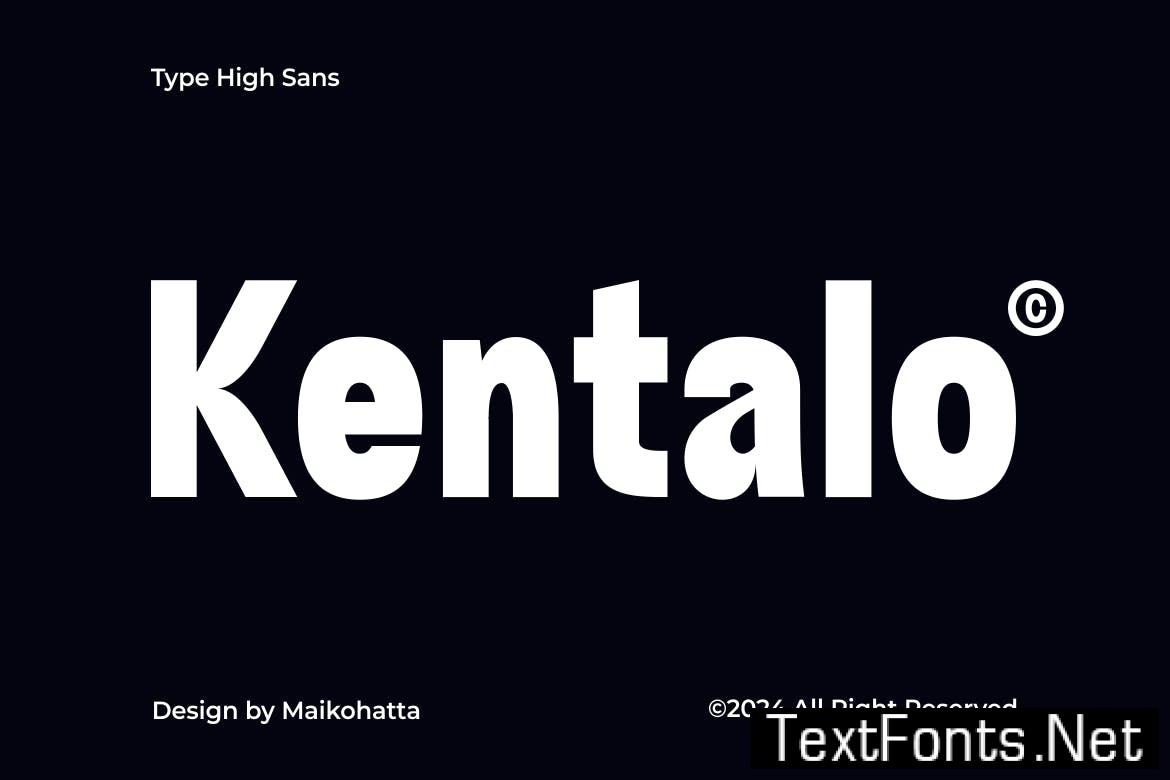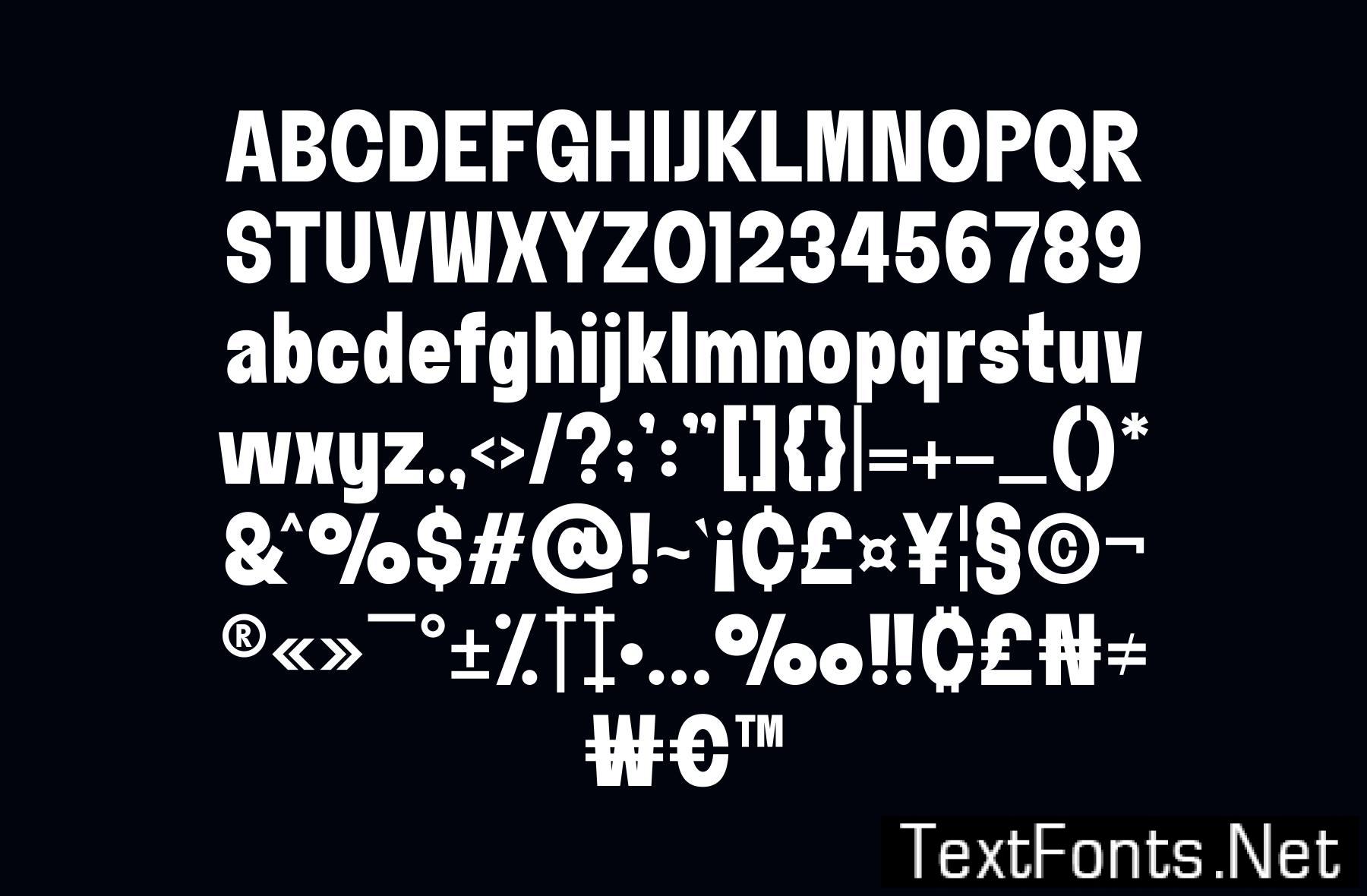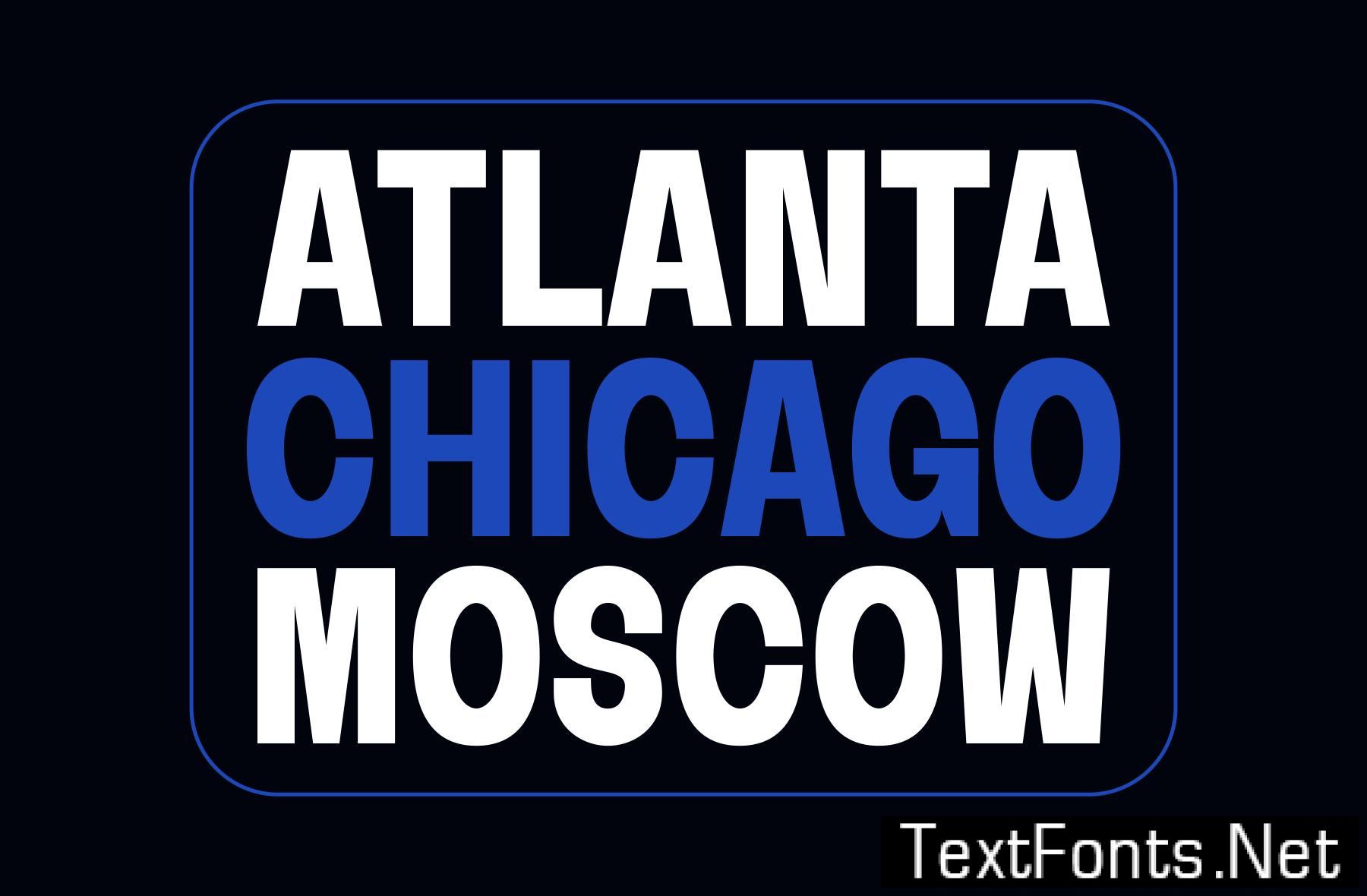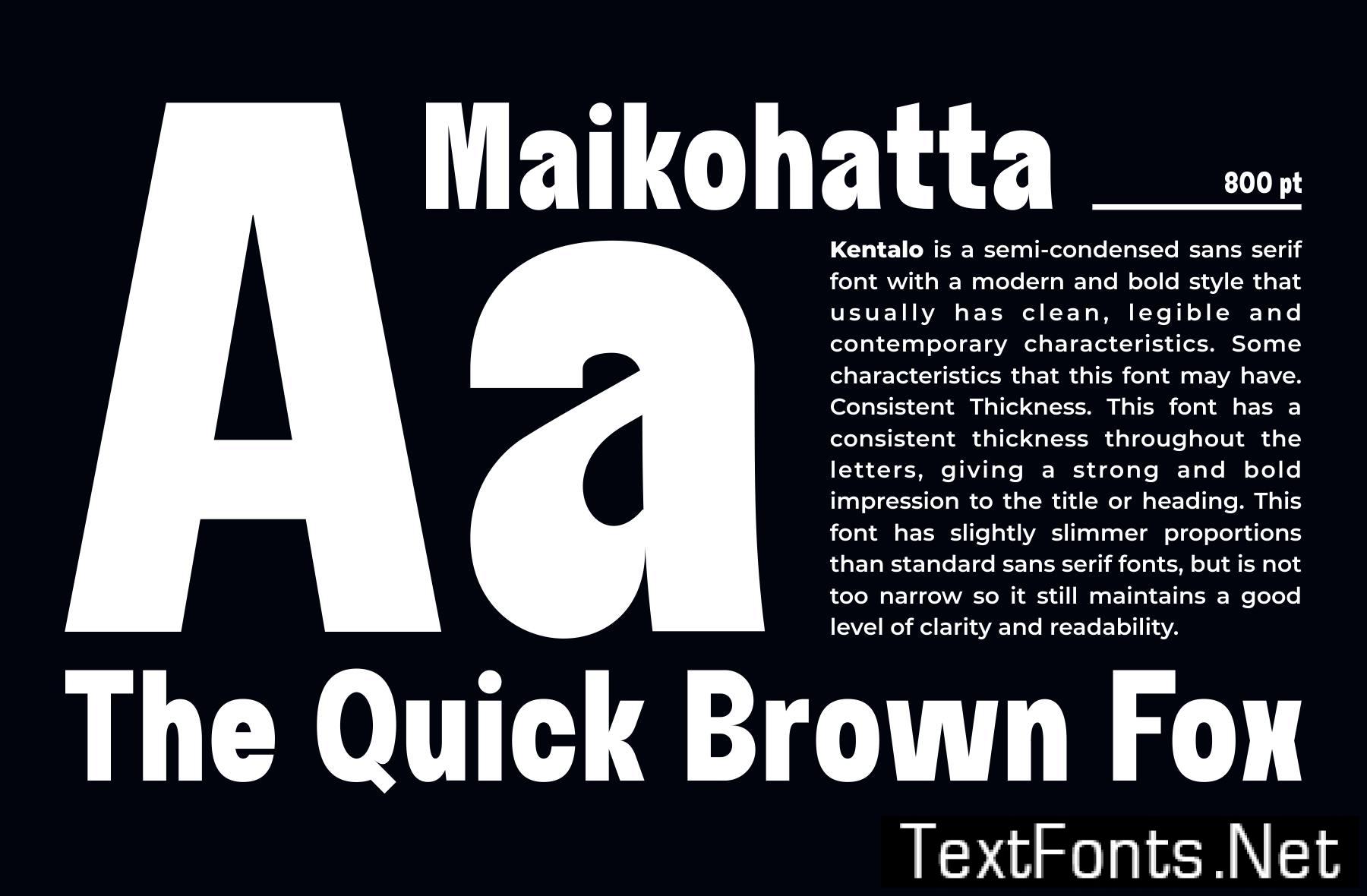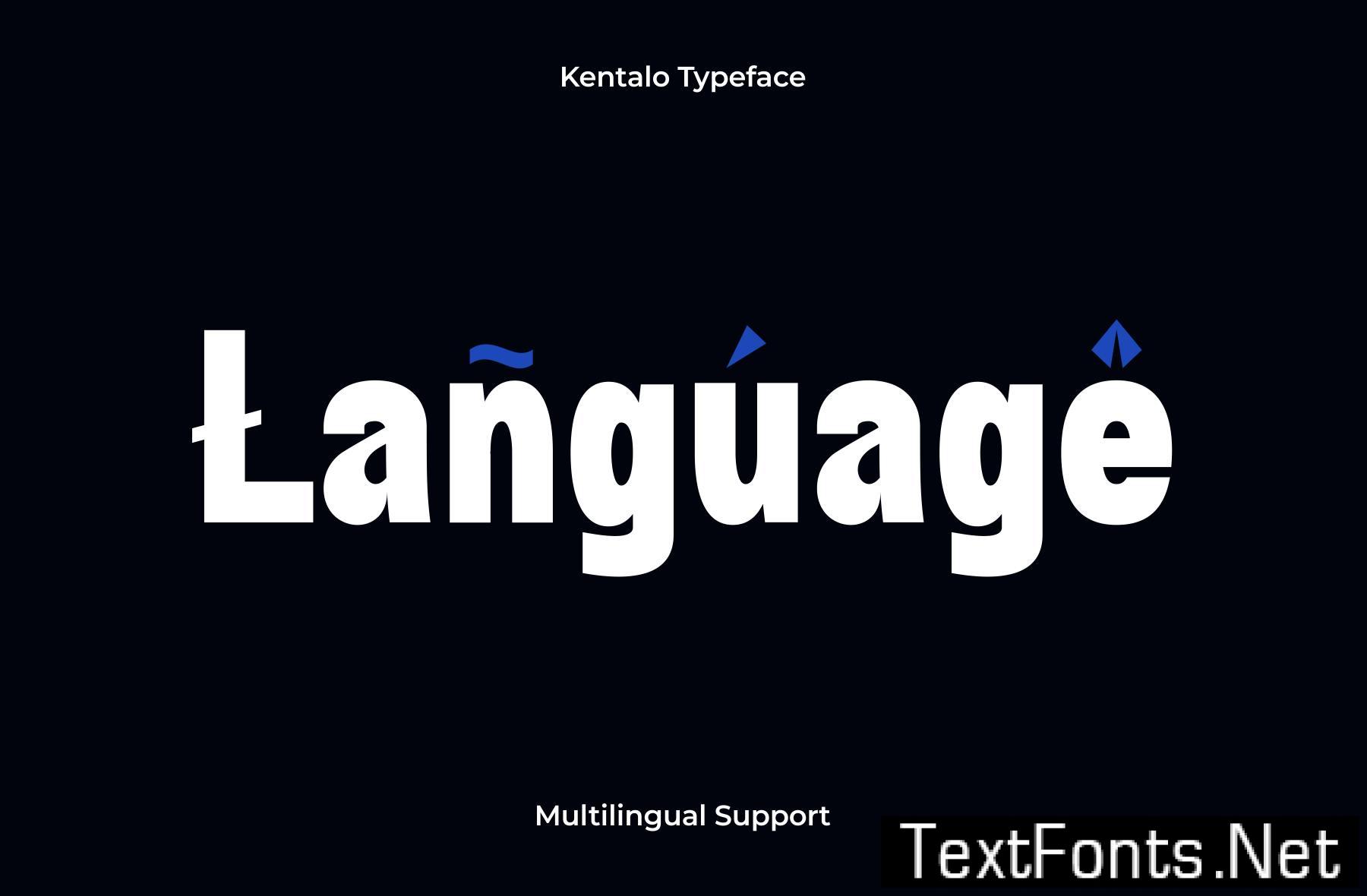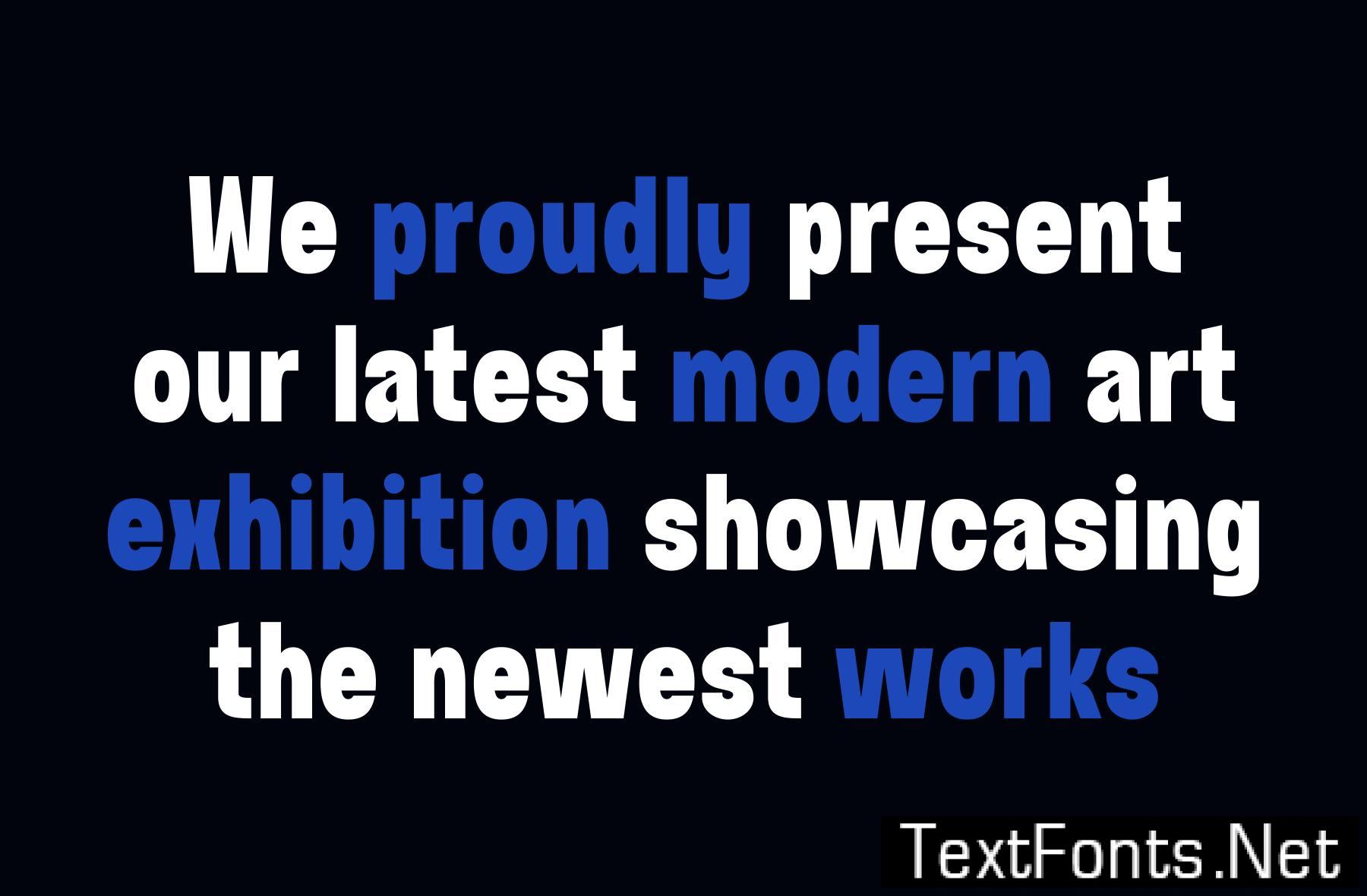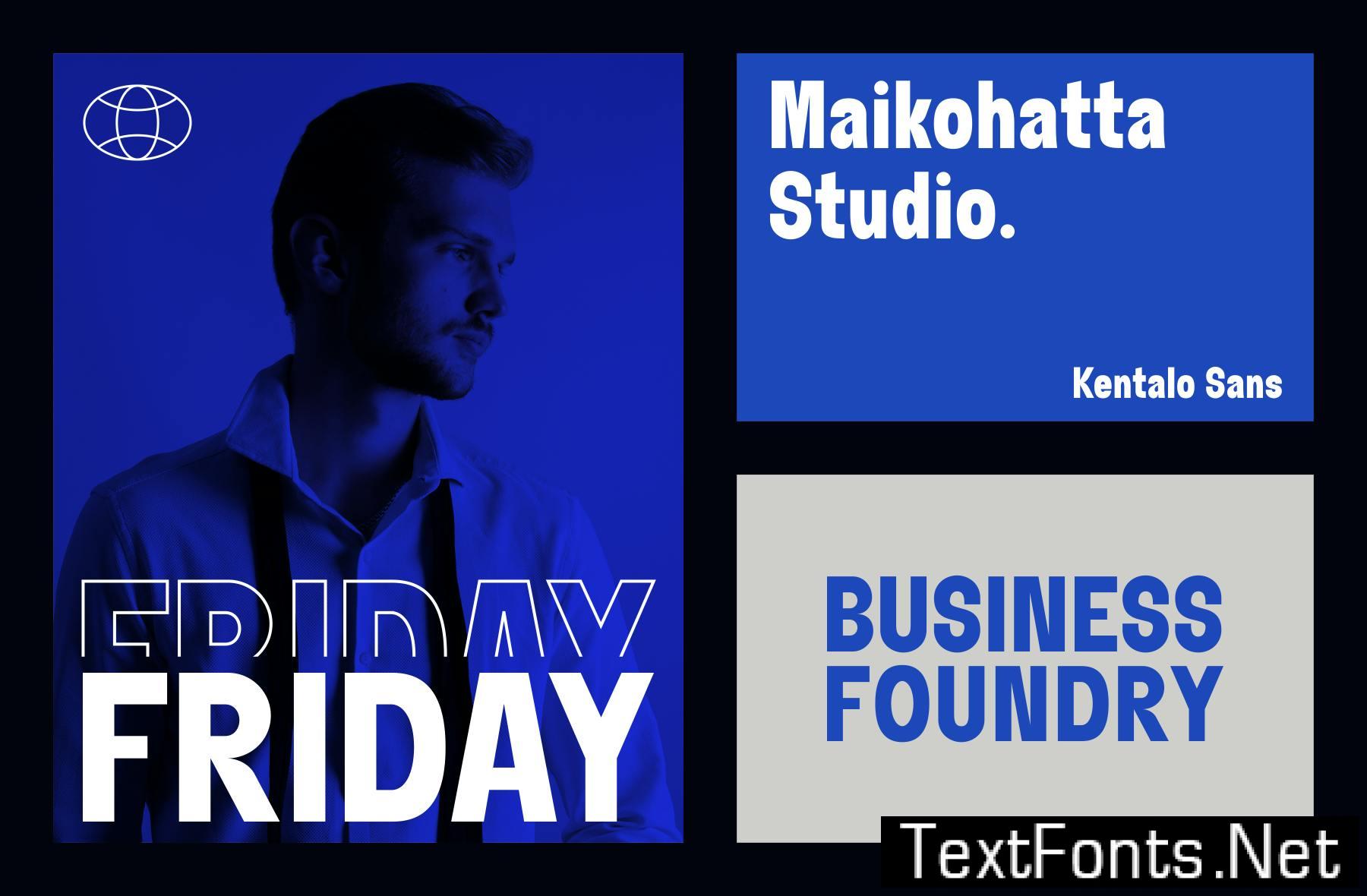
Kentalo – Modern Sans Serif Font XXACY9F
Introducing our new product **Kentalo** – Modern Sans Serif Font
**Kentalo** – Modern Font is a bold and authentic display font. The font is suitable for any branding project like logo, Template Design, esport, and many more. outstanding in a wide range of contexts.